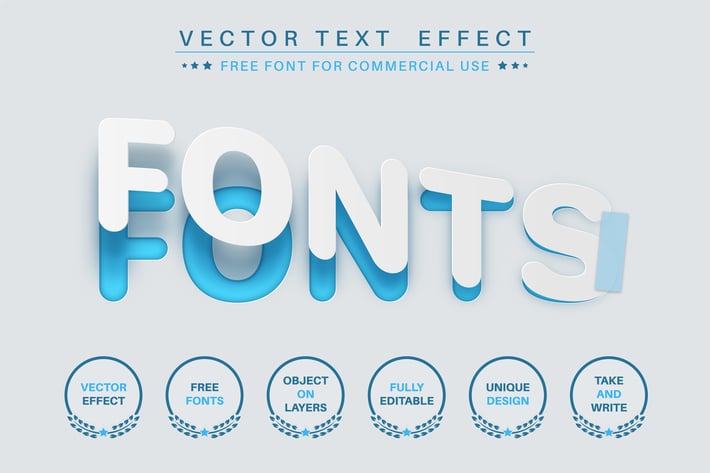
Torn paper - editable text effect, font style
Hello! I'm happy to introduce my new text effect "Torn paper". Just write your word and the effect will apply! Be as creative as you like to be in expressing yourself using this unique “Torn paper”. Effect is perfect for any project that needs a unique handy touch whatever else your imagination leads you to!